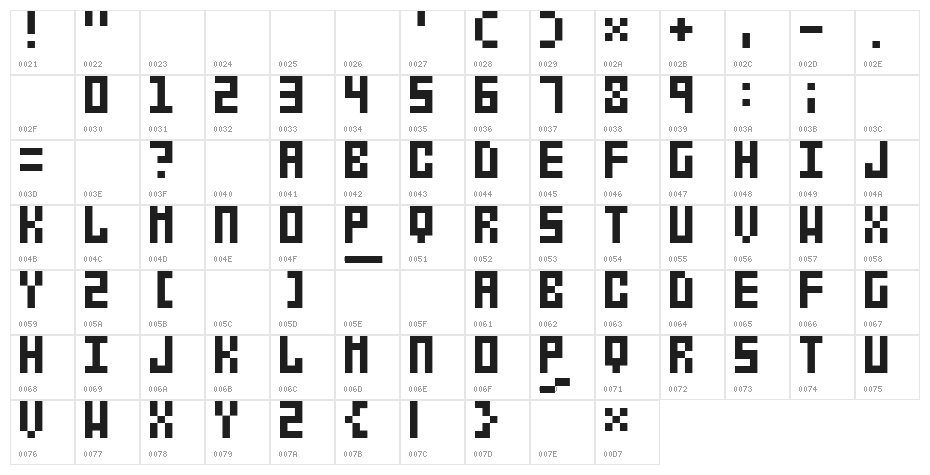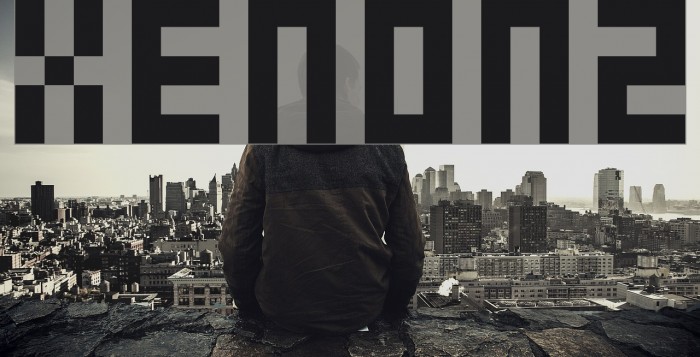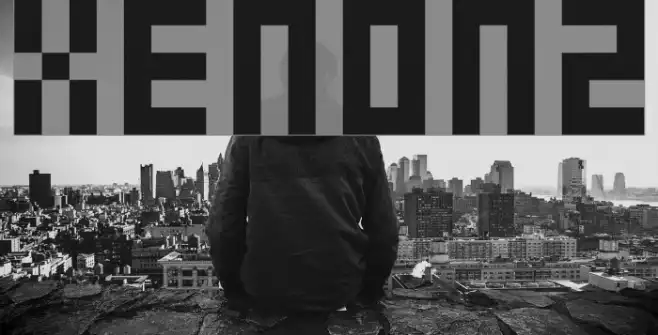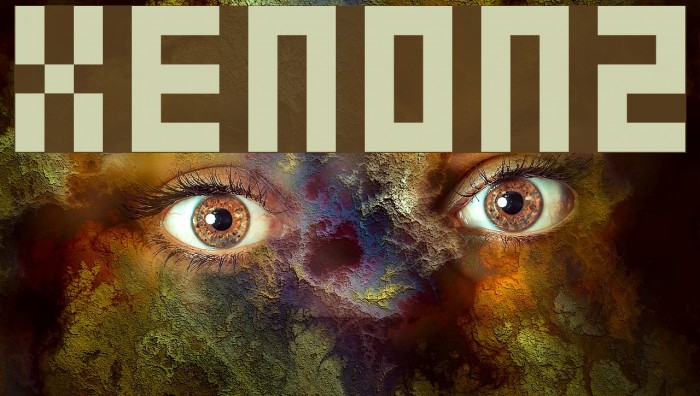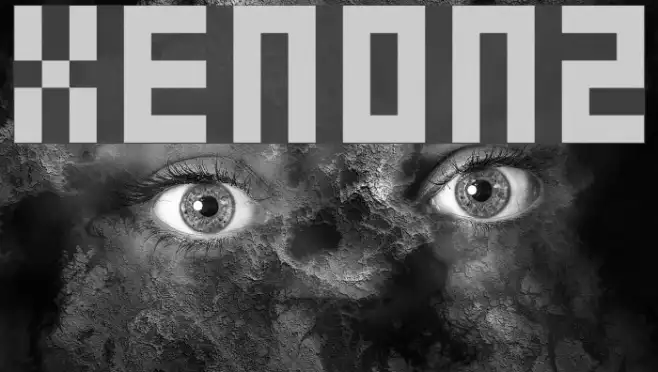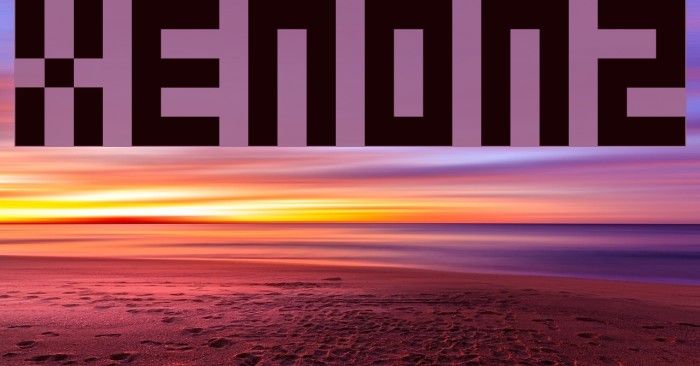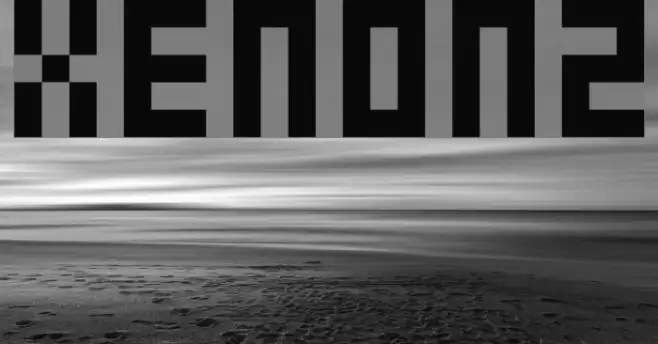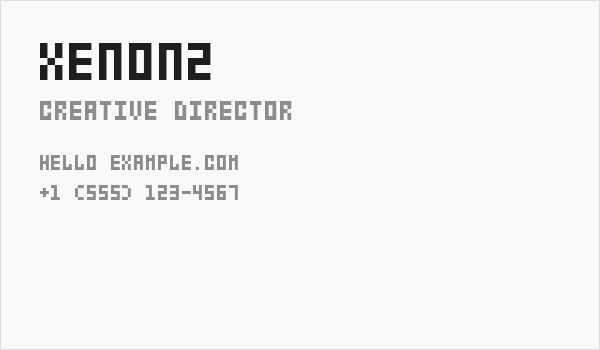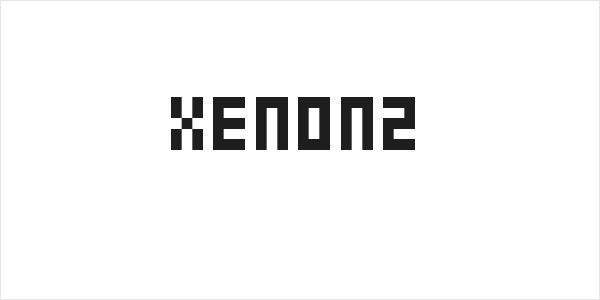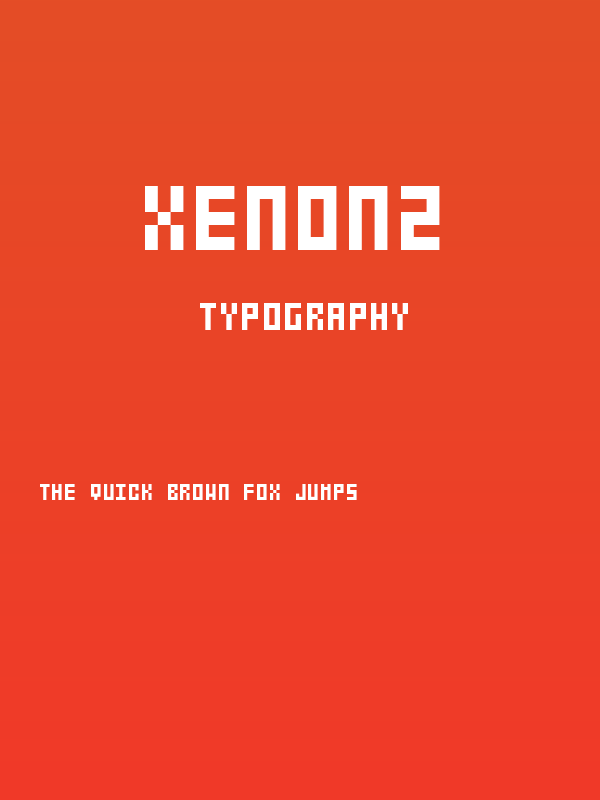
xenon2 Font
xenon2 Description
This font features a bold, geometric design with a strong emphasis on straight lines and right angles, creating a blocky and modern appearance. The characters are uniformly wide, giving a monospaced feel, although they are not strictly monospaced. The uppercase and lowercase letters are consistent in style, maintaining the same width and height, which contributes to a cohesive look. The numerals and special characters follow the same design principles, ensuring uniformity across all glyphs. This font's boldness and simplicity make it highly legible, even at smaller sizes, while its geometric style adds a futuristic and digital aesthetic.
| Proposed Projects | Ideal for digital displays, video game interfaces, tech branding, and modern posters. |